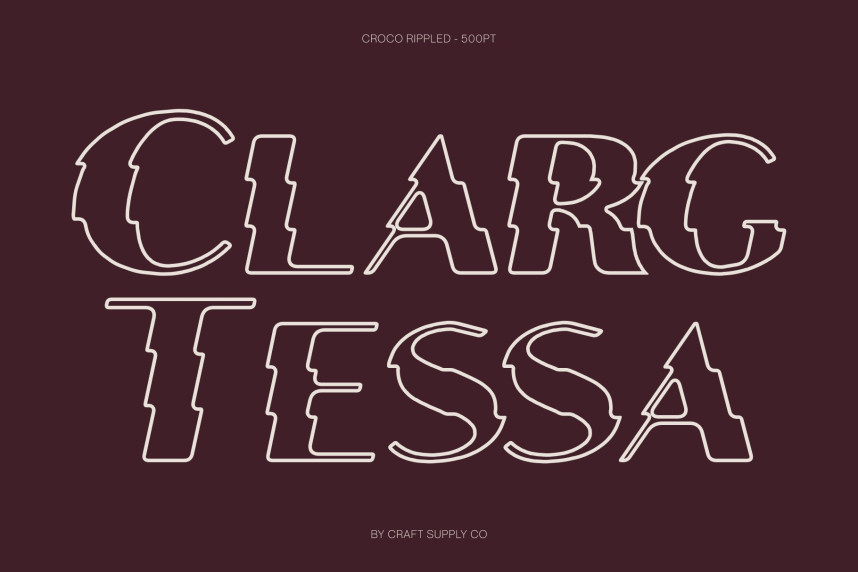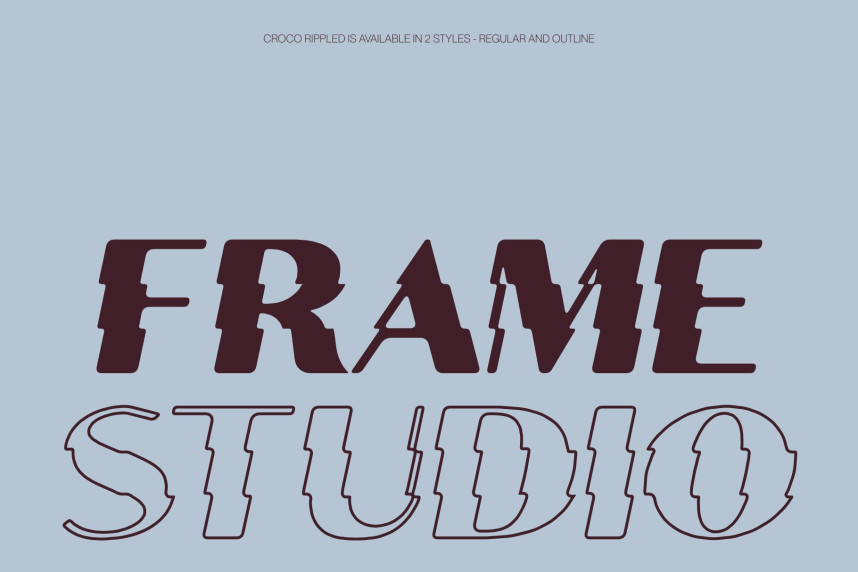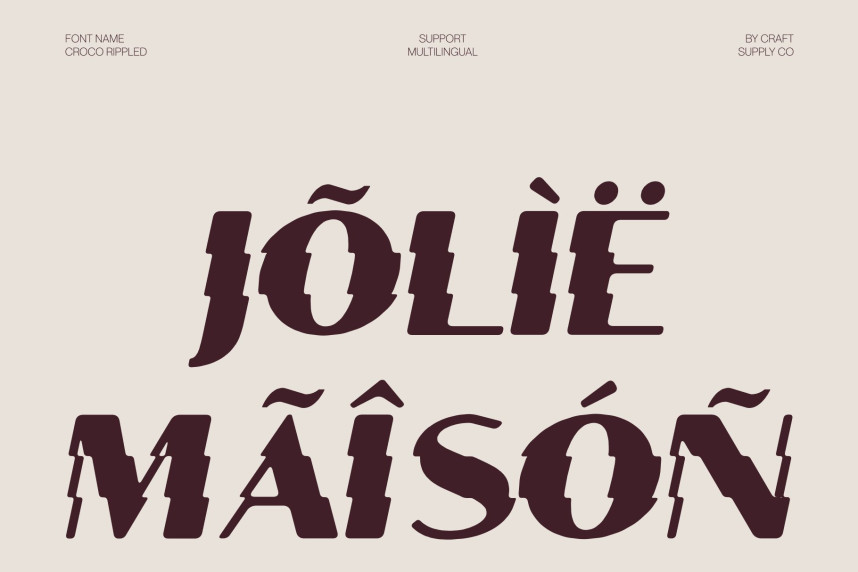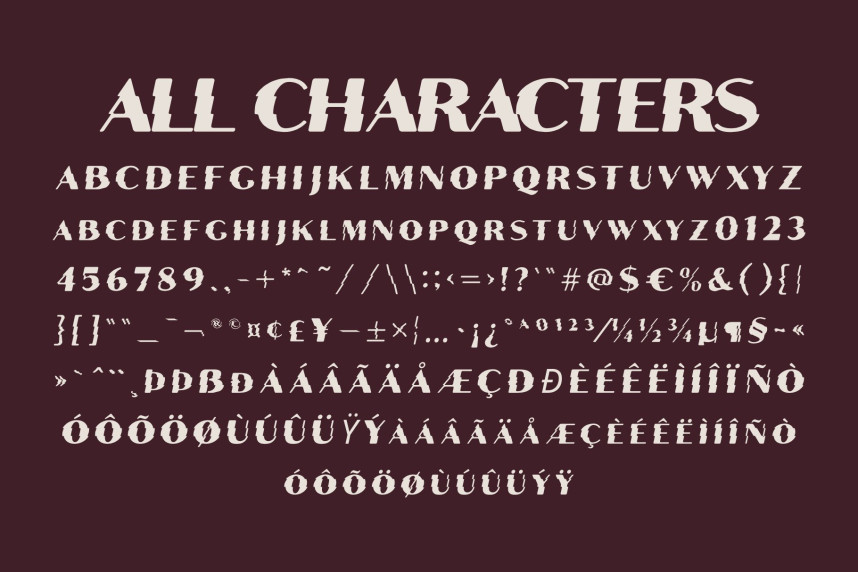
Croco Rippled Font
Croco Rippled Font – Modern Serif Font with Refined Geometry and Fluid Motion
Modern Serif with Contemporary Simplicity
This is a modern serif font that reinterprets traditional serif design through the clarity and efficiency of contemporary sans serif aesthetics. Featuring low stroke contrast, subtly squared curves, and clean structural forms, it delivers a refined appearance that feels professional, modern, and highly versatile.